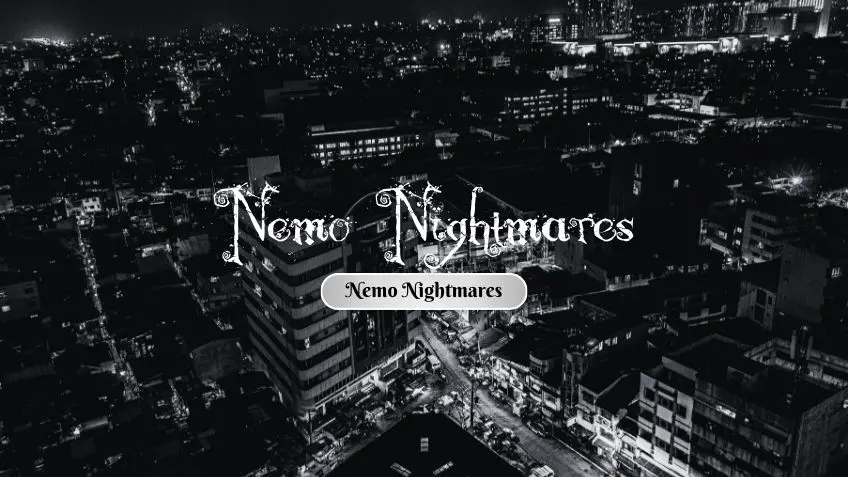
The font Nemo Nightmares Regular, designed by Chris Hansen, falls under the Display category & Nemo Nightmares font family. Its smooth, flowing letterforms make it a versatile choice for projects that require both elegance and readability. Nemo Nightmares is particularly well-suited for Apparel and Merchandise, Craft and DIY Projects, Horror and Fantasy Themes and Short Text & Quotes. With its balance of simplicity and decorative appeal, this font brings a polished touch to both personal and professional designs.